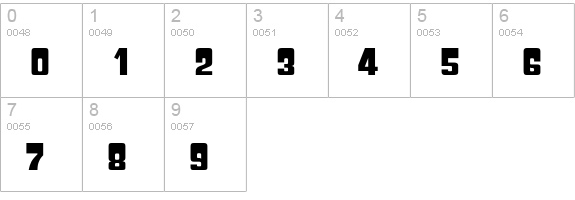
Annual-Normal is the standard, neutral variant in the Annual typeface family \xE2\x80\x94 well suited to general body text, paragraphs, and standard typographic work.
Annual-Normal font is a versatile and elegant typeface that is perfect for both digital and print design projects. With its clean lines and classic appeal, Annual-Normal is sure to make your text stand out. This font is ideal for creating professional documents, eye-catching advertisements, and stylish branding materials. What sets Annual-Normal apart is not just its timeless design, but also the fact that it is completely free to use. Yes, you read that right - this high-quality font is freely available to download at FontsMarket.com. Whether you are a designer looking for a new font to add to your collection or a business owner in need of a fresh look for your marketing materials, Annual-Normal is the perfect choice. Download it today and elevate your design projects to the next level.